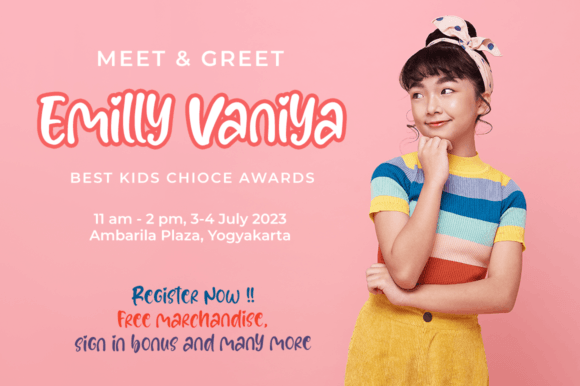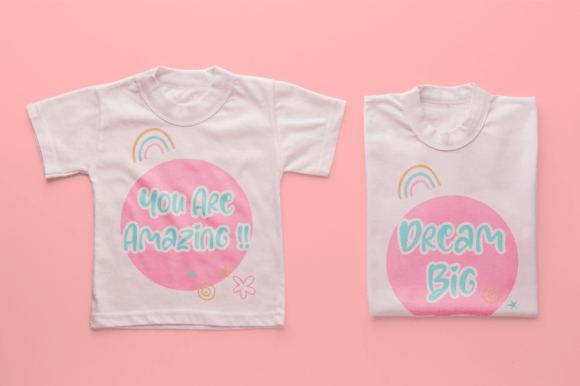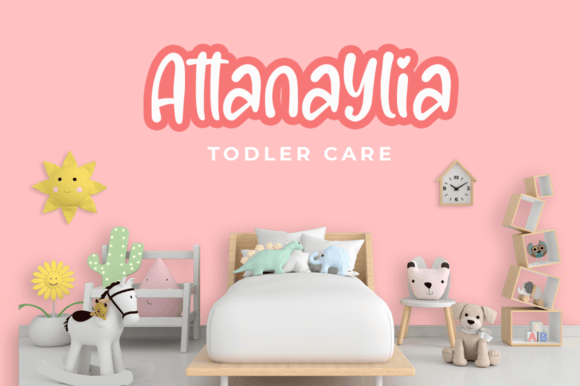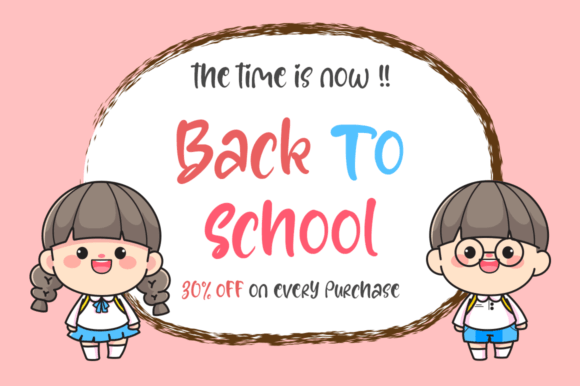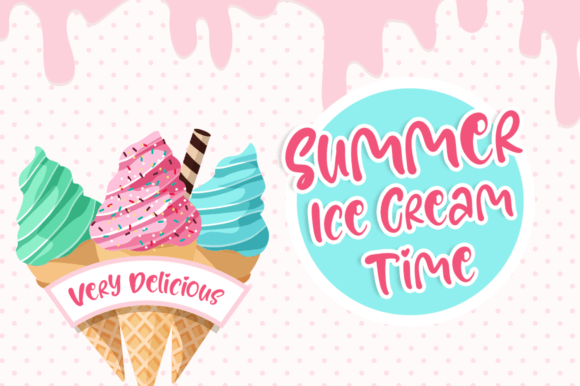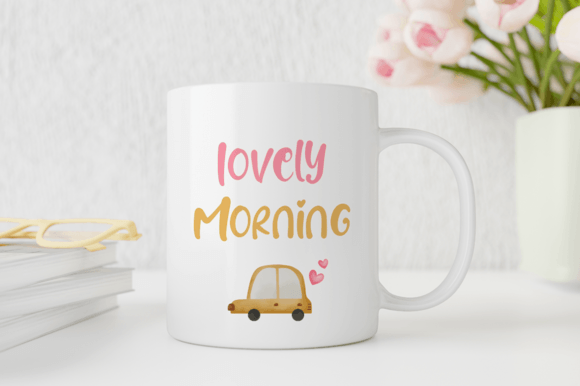
Cuttie Millie Font: The Ultimate Choice for Cheerful and Playful Designs
Are you looking for a font that can add a touch of joy and playfulness to your designs? Look no further than Cuttie Millie Font! This cheerful, fun, and smart display font is perfect for a wide range of creative projects, from cartoon-related designs and children’s games to quotes, titles, brand names, book covers, posters, and more.
What Makes Cuttie Millie Font So Special?
Cuttie Millie Font is a unique and eye-catching font that is sure to grab attention. Its playful and cheerful design makes it perfect for projects that require a touch of whimsy and fun. The font is highly versatile and can be used for a variety of design projects, including:
- Cartoon-related designs: Cuttie Millie Font is perfect for creating fun and playful cartoon characters, logos, and graphics.
- Children’s games: The font’s cheerful and playful design makes it ideal for children’s games, puzzles, and educational materials.
- Quotes and titles: Add a touch of joy and inspiration to your quotes and titles with Cuttie Millie Font.
- Brand names: Use Cuttie Millie Font to create a fun and memorable brand identity for your business or product.
- Book covers: The font’s playful design makes it perfect for book covers, especially for children’s books and young adult fiction.
- Posters: Create eye-catching posters for events, promotions, and campaigns with Cuttie Millie Font.
Key Features of Cuttie Millie Font
Cuttie Millie Font has several key features that make it a great choice for designers and crafters:
- Cheerful and playful design: The font’s playful design is sure to add a touch of joy and fun to your designs.
- Highly versatile: Cuttie Millie Font can be used for a wide range of design projects, from cartoon-related designs to posters and book covers.
- Easy to read: Despite its playful design, Cuttie Millie Font is highly legible and easy to read.
- Smart and modern: The font’s modern design makes it perfect for projects that require a touch of sophistication and elegance.
Tips for Using Cuttie Millie Font
Here are some tips for using Cuttie Millie Font in your designs:
- Use it for headlines: Cuttie Millie Font is perfect for headlines and titles, where its playful design can really shine.
- Pair it with other fonts: Experiment with pairing Cuttie Millie Font with other fonts to create a unique and eye-catching design.
- Use it for branding: Use Cuttie Millie Font to create a fun and memorable brand identity for your business or product.
- Experiment with colors: Cuttie Millie Font looks great in a variety of colors, so don’t be afraid to experiment and find the perfect color scheme for your design.
Cuttie Millie Font is a cheerful, fun, and smart display font that is perfect for a wide range of creative projects. Its playful and modern design makes it highly versatile and easy to use, and its high legibility ensures that it can be used for both headlines and body text. Whether you’re a designer, crafter, or DIY enthusiast, Cuttie Millie Font is a great choice for adding a touch of joy and playfulness to your designs.